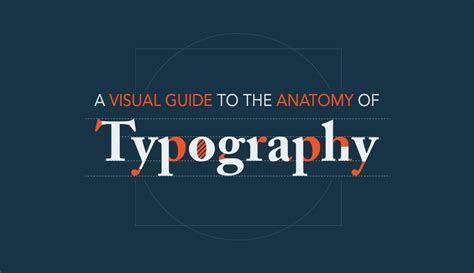
Parts Of A Font
Parts Of A Font - The strokes are the components of a letterform. Web type anatomy leg. A leg typography is the portion of a letter that extends downwards, attached at one end and free at the other. Strokes may be straight, as in k l v w x z, or curved, as in c o s. Typographic parts of a glyph : This term refers to the specific shape of a letter, making it one of the fundamental terms in. Web the only font anatomy design guide you’ll ever need.
The strokes are the components of a letterform. A leg typography is the portion of a letter that extends downwards, attached at one end and free at the other. This term refers to the specific shape of a letter, making it one of the fundamental terms in. Web the only font anatomy design guide you’ll ever need. Web type anatomy leg. Strokes may be straight, as in k l v w x z, or curved, as in c o s. Typographic parts of a glyph :
Strokes may be straight, as in k l v w x z, or curved, as in c o s. Web type anatomy leg. A leg typography is the portion of a letter that extends downwards, attached at one end and free at the other. Web the only font anatomy design guide you’ll ever need. This term refers to the specific shape of a letter, making it one of the fundamental terms in. Typographic parts of a glyph : The strokes are the components of a letterform.
Defining the TermsPart 1 Anatomy Society of Fonts
Web type anatomy leg. The strokes are the components of a letterform. This term refers to the specific shape of a letter, making it one of the fundamental terms in. Typographic parts of a glyph : Strokes may be straight, as in k l v w x z, or curved, as in c o s.
Anatomy of Typography Anatomy of typography, Typographic poster
Web the only font anatomy design guide you’ll ever need. This term refers to the specific shape of a letter, making it one of the fundamental terms in. A leg typography is the portion of a letter that extends downwards, attached at one end and free at the other. Strokes may be straight, as in k l v w x.
Chart of Letterform Terms showing baseline, serifs, counters, ascender
The strokes are the components of a letterform. Web type anatomy leg. Typographic parts of a glyph : Web the only font anatomy design guide you’ll ever need. Strokes may be straight, as in k l v w x z, or curved, as in c o s.
Type Anatomy A Visual Guide to the Parts of Letters
The strokes are the components of a letterform. A leg typography is the portion of a letter that extends downwards, attached at one end and free at the other. Strokes may be straight, as in k l v w x z, or curved, as in c o s. This term refers to the specific shape of a letter, making it.
Anatomy of Font The PG13 Version AE2S Communications
The strokes are the components of a letterform. Web type anatomy leg. Typographic parts of a glyph : This term refers to the specific shape of a letter, making it one of the fundamental terms in. Web the only font anatomy design guide you’ll ever need.
Anatomy Of Typography Poster
Typographic parts of a glyph : A leg typography is the portion of a letter that extends downwards, attached at one end and free at the other. Strokes may be straight, as in k l v w x z, or curved, as in c o s. The strokes are the components of a letterform. Web type anatomy leg.
Letterforms Typographic Anatomy — Studio Chavelli Calligraphy & Design
A leg typography is the portion of a letter that extends downwards, attached at one end and free at the other. Typographic parts of a glyph : Strokes may be straight, as in k l v w x z, or curved, as in c o s. This term refers to the specific shape of a letter, making it one of.
Design Spark Anatomy of typography, Letter anatomy, Font anatomy
This term refers to the specific shape of a letter, making it one of the fundamental terms in. Web type anatomy leg. A leg typography is the portion of a letter that extends downwards, attached at one end and free at the other. Strokes may be straight, as in k l v w x z, or curved, as in c.
The Anatomy of a Typeface NEWU™ Advertising Agency
Typographic parts of a glyph : Strokes may be straight, as in k l v w x z, or curved, as in c o s. Web type anatomy leg. The strokes are the components of a letterform. Web the only font anatomy design guide you’ll ever need.
What Is Type Anatomy? IxDF
Web the only font anatomy design guide you’ll ever need. The strokes are the components of a letterform. A leg typography is the portion of a letter that extends downwards, attached at one end and free at the other. Strokes may be straight, as in k l v w x z, or curved, as in c o s. Web type.
Web Type Anatomy Leg.
This term refers to the specific shape of a letter, making it one of the fundamental terms in. Typographic parts of a glyph : A leg typography is the portion of a letter that extends downwards, attached at one end and free at the other. Strokes may be straight, as in k l v w x z, or curved, as in c o s.
The Strokes Are The Components Of A Letterform.
Web the only font anatomy design guide you’ll ever need.